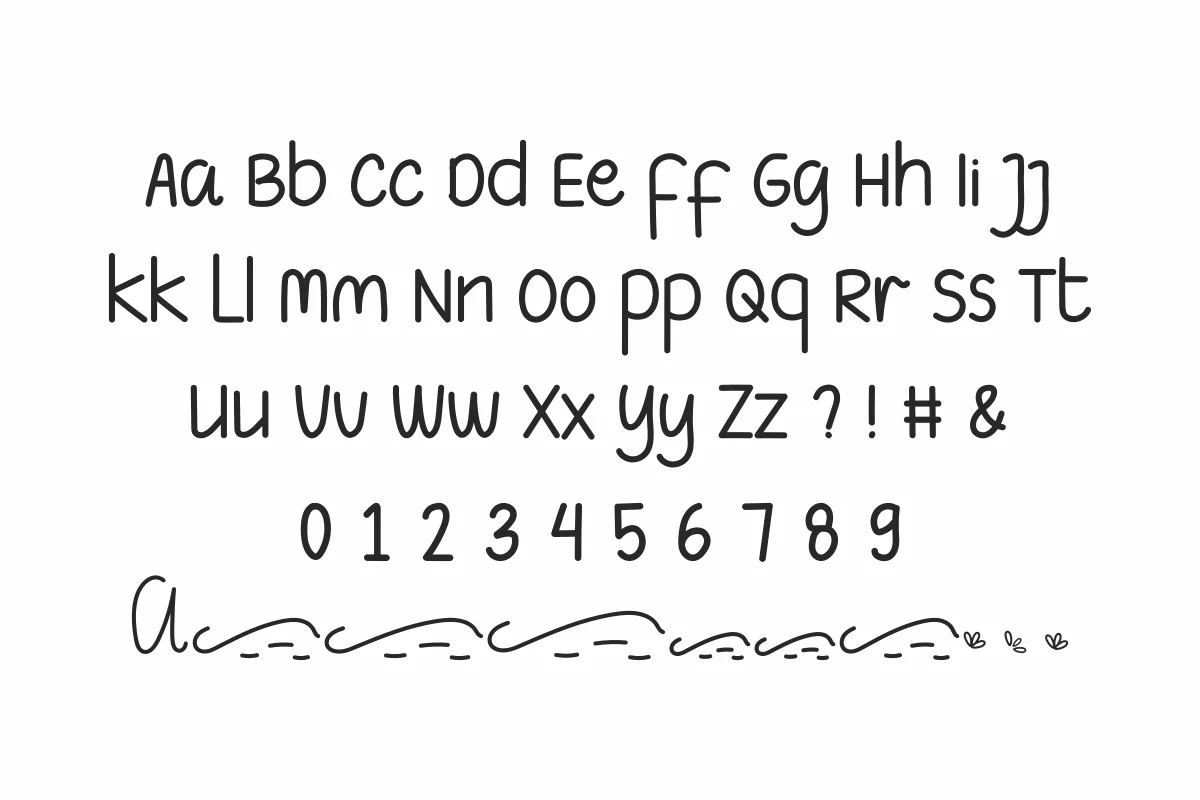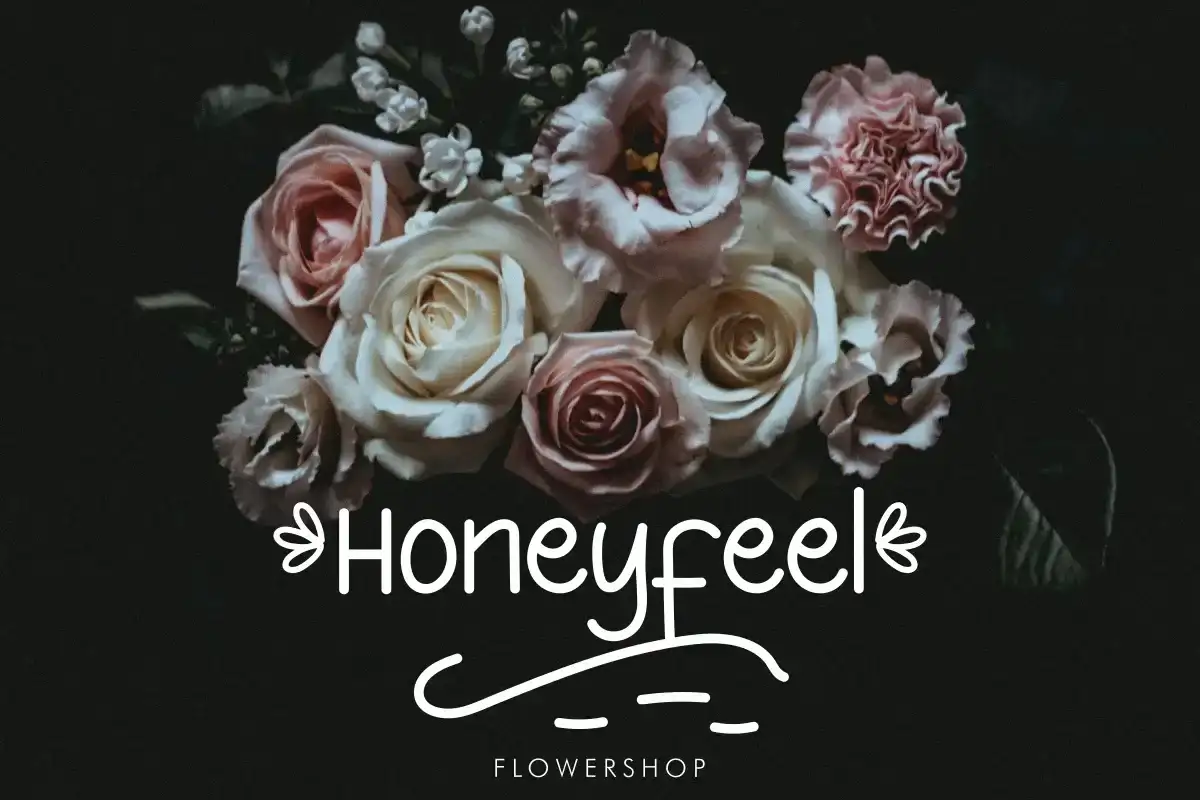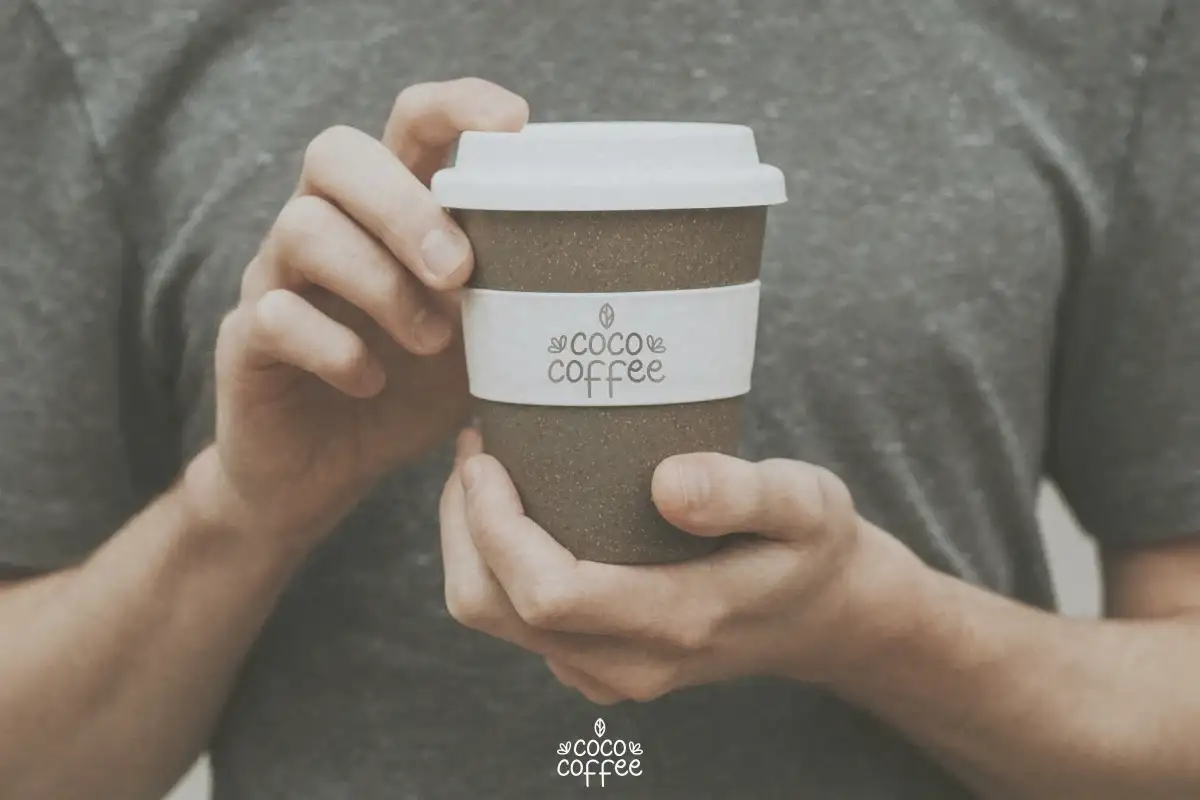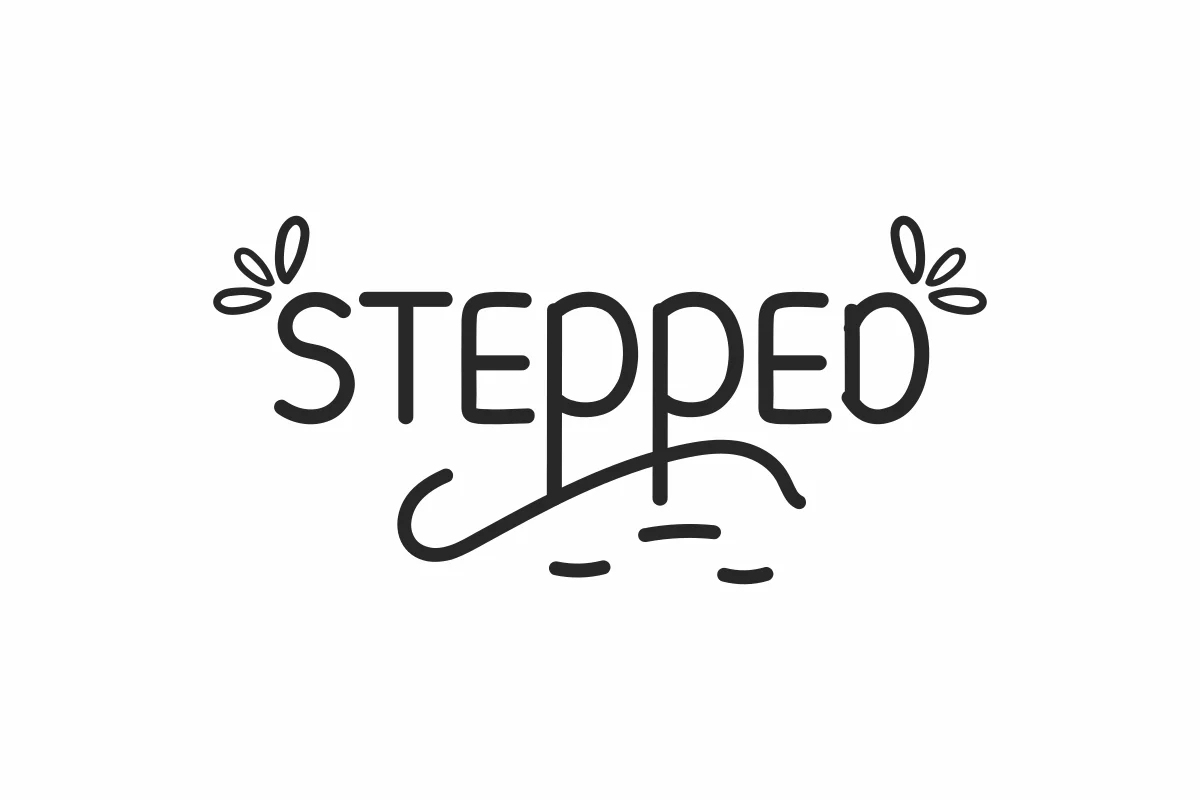
Stepped Font is a display font with four unique style. Originally made by NihStudio Font Designers : Ali and Sarah. On the package you will get :
Handcrafted here in our Studio , Indonesia. Stepped will be great for any projects (require extended license) including : branding, logo, stationery, business card, signage, flyer, brochure etc.